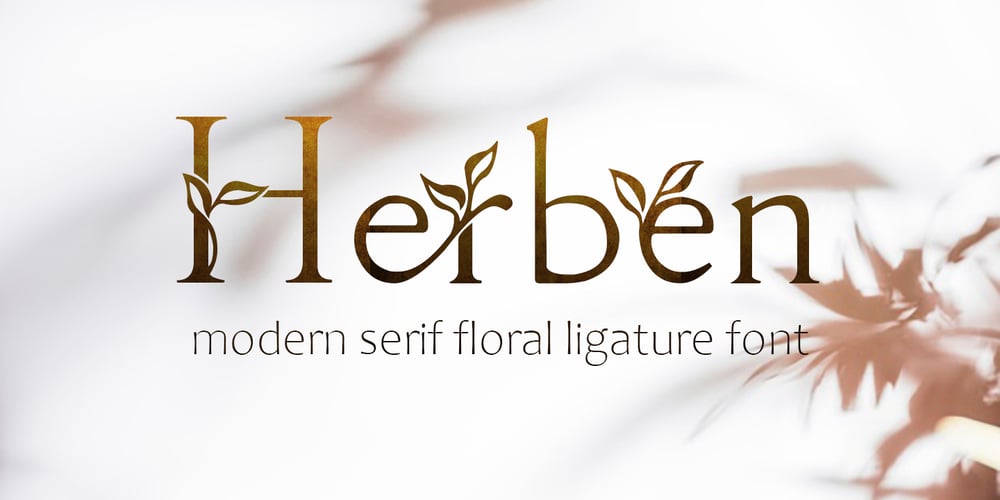
Herben Font Family was designed by Polina Chistyakova and published by Innire. Herben contains 1 styles and family package options. The Herben – is a unique ligature serif font inspired by nature and autumn mood. It is perfect for logos (especially to word-mark logos), branding, invitation card, and much more; and well to emphasize your unique style, eco concept, or something else. 75 ligatures and 14 swashes will help create individual writing, thereby expanding the scope for creative expression.What’s about details and features? Letters A-Z, a-z, 0-9 and punctuation (all in preview); 75 unique ligatures;